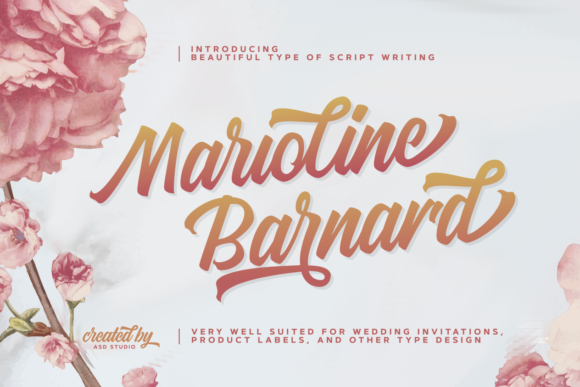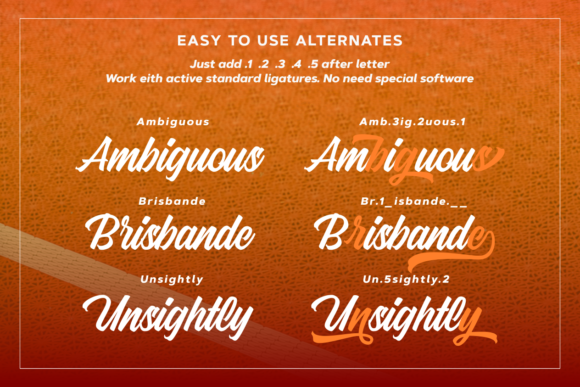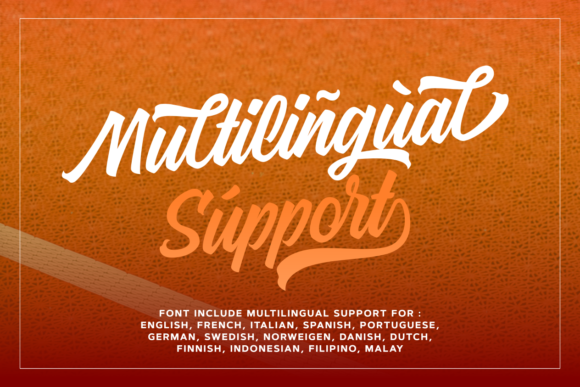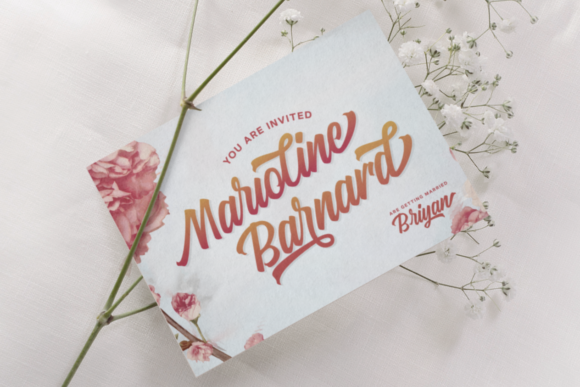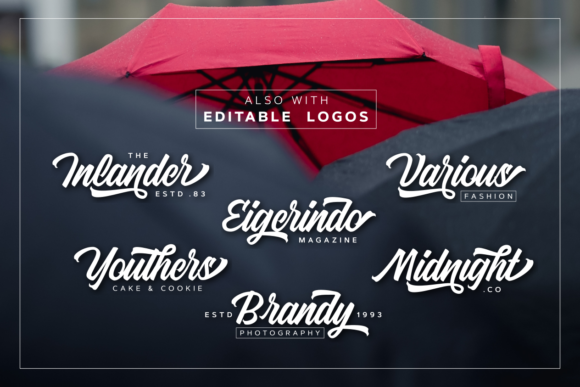
HomeScript FontsMarioline Barnard Font Script Fonts Marioline Barnard Font FacebookXPinterestWhatsApp Marioline Barnard Font Poster 2 Marioline Barnard Font Poster 3 Marioline Barnard Font Poster 4 Marioline Barnard Font Poster 5 About Marioline Barnard Font Marioline Barnard is a sweet and charming script with a vintage look. Get inspired by its unique style! DOWNLOAD NOW People also explored Bettari Font Lemon Nicmat Font Diandra Font Jasdiara Font Gomedievar Font Limeade Font Great Escape Nagatshu Semi-Bold Font Wednesday Font 277 0 TagsMarioline Barnard Font Previous articleRhapson Script FontNext articleKarllia Font LEAVE A REPLY Cancel reply Comment: Please enter your comment! Name:* Please enter your name here Email:* You have entered an incorrect email address! Please enter your email address here Website: Save my name, email, and website in this browser for the next time I comment. Personal Use Free Summer Pisces Personal Use Free Read more about this font BD TinyFont Personal Use Free Read more about this font Millea Personal Use Free Read more about this font Fakedes Personal Use Free Read more about this font BLOG Exploring Font Trends Shaping Communication in the Digital Era Fonts, like all design elements, are subject to trends. They play a crucial role in communicating a brand's personality,... Best Fonts for YouTube Videos: Make Your Thumbnails Stand Out Using Fonts in Digital Marketing: Tips to Strengthen Your Brand Identity Where to Buy American Fonts Online in 2024